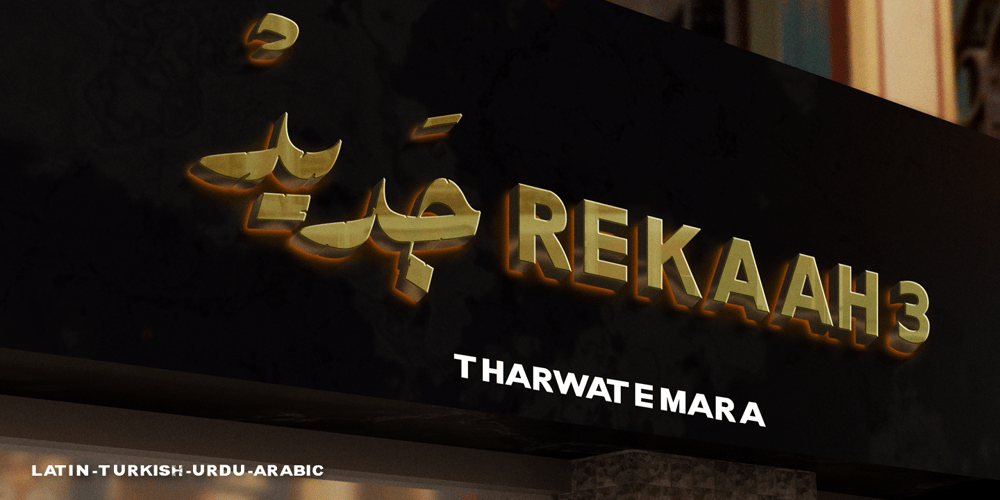
TE Rekaah3
TE Rekaah3 Font Family was designed by Tharwat Mohamed Emara and published by Tharwat Emara. TE Rekaah3 contains 2 styles and family package options. Introducing TE Rekaah3: Unleash the Beauty of Arabic Calligraphy by Tharwat EmaraTE Rekaah3 is not just a font; it is a masterpiece crafted by renowned calligrapher Tharwat Emara, bringing the timeless beauty of Arabic calligraphy to life. With its exquisite design, meticulous attention to detail, and captivating aesthetics, TE Rekaah3 invites you to embark on a journey of creativity and immerse yourself in the artistry of Arabic script.Impeccable Craftsmanship:Tharwat Emara, a master calligrapher, has poured his expertise and passion into every curve and stroke of TE Rekaah3. The result is a font that showcases the flawless craftsmanship and artistic precision that Tharwat Emara is renowned for. Each letterform is meticulously designed, reflecting the elegance and grace of Arabic calligraphy in its purest form.Elegance Redefined:TE Rekaah3 embodies a harmonious balance between tradition and innovation. It embraces the timeless elegance of Arabic script while infusing it with a contemporary flair. The graceful letterforms and balanced proportions of TE Rekaah3 exude sophistication, making it the perfect choice for projects that demand refined aesthetics and a touch of modernity.Captivating Visual Appeal:TE Rekaah3 captivates the eye with its visually striking composition. The seamless flow of each character, carefully curated ligatures, and distinctive swashes create a captivating rhythm that draws the viewer in. Whether used for headlines, logos, or editorial layouts, TE Rekaah3 ensures that your designs make a lasting impression.Unparalleled Legibility:Tharwat Emara’s expertise in calligraphy shines through in TE Rekaah3’s exceptional legibility. Each letterform is thoughtfully crafted to ensure clarity and readability, even at smaller sizes or in intricate design compositions. Your message will be conveyed with precision and impact, making TE Rekaah3 a reliable choice for a wide range of design applications.Versatile Expressiveness:TE Rekaah3 offers a wealth of creative possibilities. With its comprehensive character set, including alternates, ligatures, and stylistic variations, you have the freedom to express your artistic vision. Whether you seek a contemporary look or a more traditional feel, TE Rekaah3 provides the versatility to bring your creative ideas to life.Seamless Integration:TE Rekaah3 seamlessly integrates into your design workflow, ensuring a smooth and efficient experience. Available in various file formats and compatible with popular design software, it offers convenience and ease of use. Focus on your creative process and let TE Rekaah3 effortlessly elevate your designs.Celebrate the Art of Arabic Calligraphy:TE Rekaah3, born from the creativity of Tharwat Emara, celebrates the rich heritage of Arabic calligraphy. It pays homage to centuries of artistic tradition while embracing the demands of contemporary design. By choosing TE Rekaah3, you honor the legacy of Arabic calligraphy and create designs that resonate with cultural richness and artistic expression.Immerse yourself in the beauty of TE Rekaah3, where the mastery of Tharwat Emara converges with the art of Arabic calligraphy. Unleash your creativity, elevate your designs, and let TE Rekaah3 become the embodiment of your artistic vision.